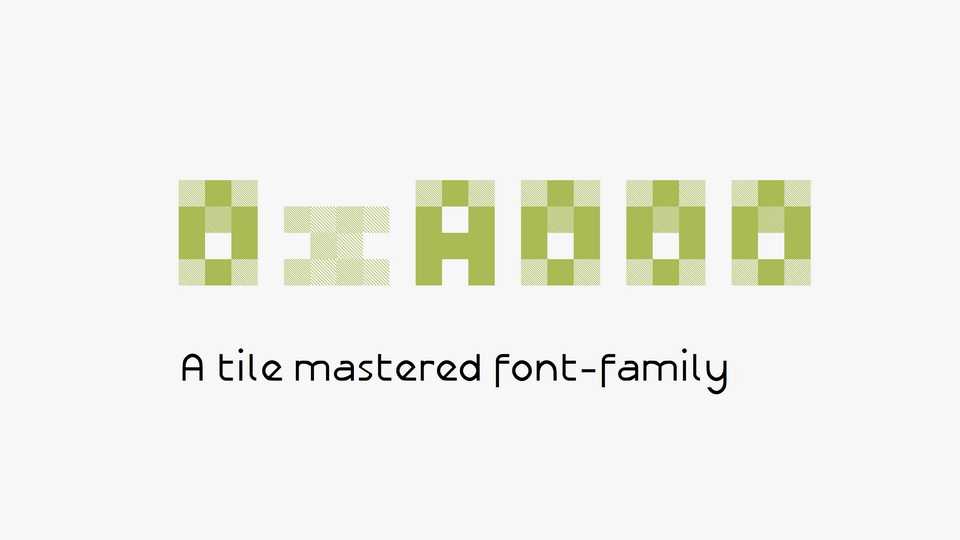
Download 0xA000 typeface, a meta-modular tile-grid based font family, started out as an experiment in trying to create a pixel font with greyscale squares for anti-aliasing.
Designer: Øyvind Kolås